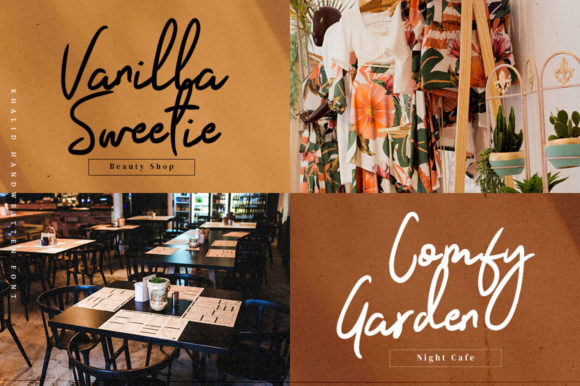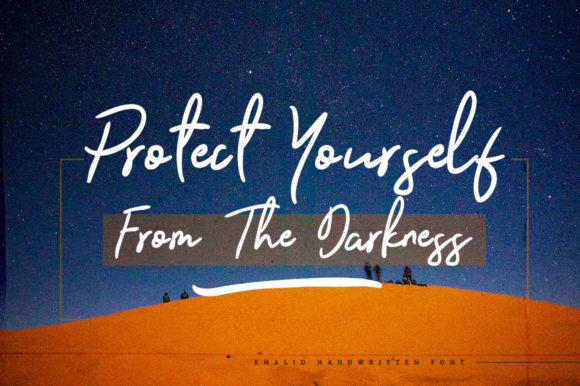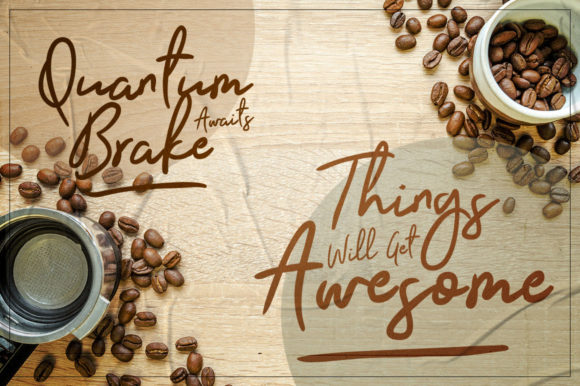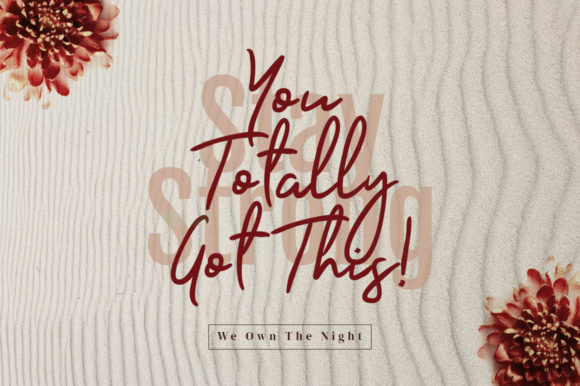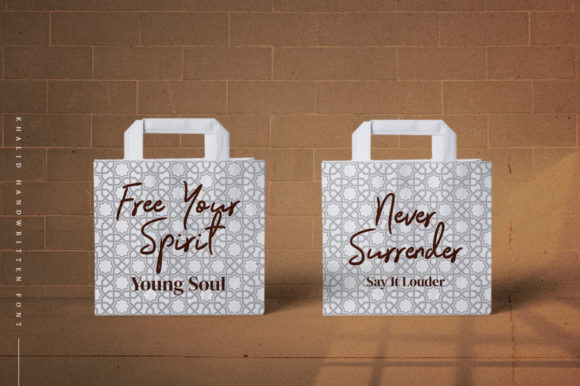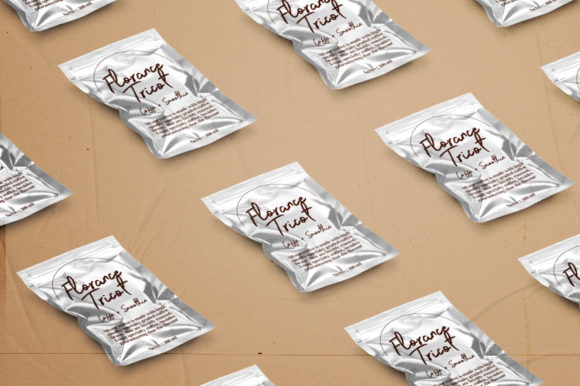
The Art of Handwritten Elegance: Unlocking the Power of the Khalid Font
Have you ever been inspired by a beautiful handwritten note from a loved one, only to realize that recreating that same feeling in a digital format is a challenge? I know I have. As a designer, I’ve often found myself searching for the perfect font to capture the essence of handwritten elegance, only to be left with something that feels impersonal and lacking.
That’s where the Khalid Font comes in – a luxurious, modern handwriting font that’s perfect for designers looking to add a touch of personality to their work. Available in both regular and swash versions, this versatile font offers endless possibilities for creative expression. Whether you’re working on a photography project, designing social media posts, or creating custom branding, the Khalid Font is a valuable asset that can elevate your designs and make them truly stand out.
Khalid Font Key Features
- Font Family: Khalid Font is a modern, elegant font designed by Khalid Abdullah.
- Character Count: The font contains a wide range of characters, including Latin, Arabic, and some Cyrillic alphabets, making it suitable for multilingual designs.
- Size: The font comes in a single weight, making it ideal for headings and titles where a bold statement is required.
- Resolution: Designed for high-resolution displays, the font is perfect for use on screens with high pixel density.
- Unique Characteristics: The font features a unique blend of traditional and modern elements, giving it a distinctive look that is both elegant and sophisticated.
Khalid Font Review
Overall, the Khalid Font is an interesting addition to any design project. One thing that stands out is its unique aesthetic, particularly in its script style ✨. The font’s intricate details and connections between letters give it a sense of elegance and sophistication.
- It performs well in both display and body copy, making it a versatile option for various design applications.
- The script style of the font makes it a great choice for titles, headings, and other visual elements where you want to draw attention.
- The font’s high x-height helps improve readability, making it suitable for longer blocks of text.
However, there are some limitations to consider ⚠️. The font’s intricacy can sometimes make it difficult to read, particularly at smaller font sizes.
- The font may not be the best choice for body copy in small font sizes due to readability concerns.
- The intricate details can sometimes make the font look cluttered or busy.
Overall, the Khalid Font is a great choice for designers looking to add a touch of sophistication and elegance to their projects. While it may have some limitations, its unique aesthetic and versatility make it a valuable addition to any design library.
Tips for Getting the Most Out of Khalid Font
Khalid Font is a versatile font that can be used for a variety of purposes. Here are some tips for getting the most out of it:
- Use Khalid Font for headings and titles to add a touch of elegance and sophistication.
- Pair Khalid Font with other fonts to create a unique and visually appealing design.
- Experiment with different font sizes and styles to create a dynamic and engaging design.
Alternatives to Khalid Font
Poppins Font
Poppins Font is a modern sans-serif font that is highly legible and versatile. It is suitable for a wide range of applications, from body text to headings. Poppins Font has a similar clean and minimalist aesthetic to Khalid Font, but with a slightly more rounded feel. It is a great alternative for designers who want a font that is both elegant and easy to read.
Montserrat Font is a geometric sans-serif font that is highly versatile and adaptable. It is suitable for a wide range of applications, from body text to headings. Montserrat Font has a similar urban feel to Khalid Font, but with a more geometric and modern aesthetic. It is a great alternative for designers who want a font that is both edgy and sophisticated.
Inter Font is a modern sans-serif font that is highly legible and versatile. It is suitable for a wide range of applications, from body text to headings. Inter Font has a similar clean and minimalist aesthetic to Khalid Font, but with a slightly more geometric feel. It is a great alternative for designers who want a font that is both elegant and modern.